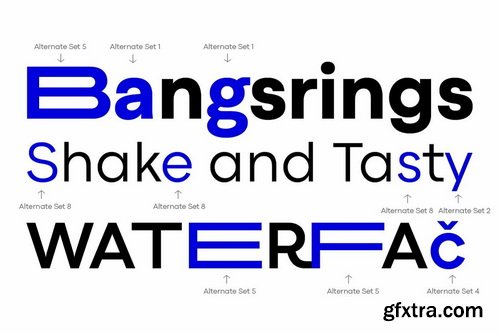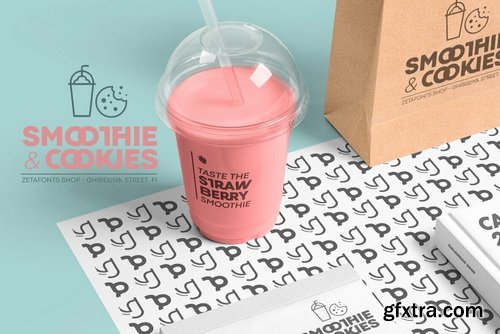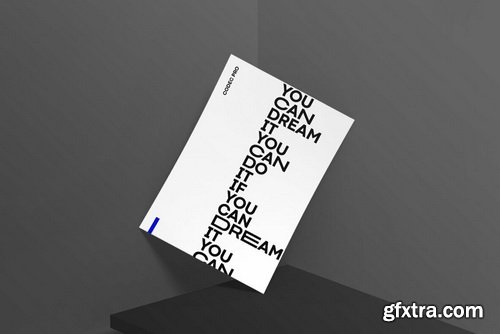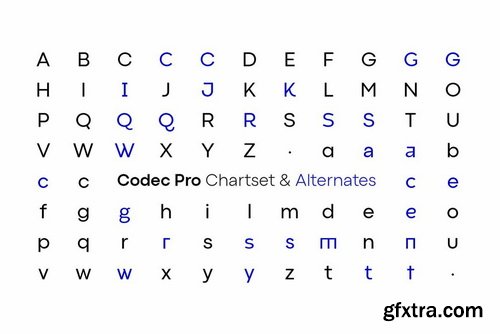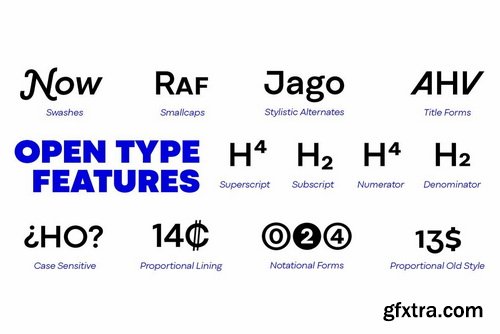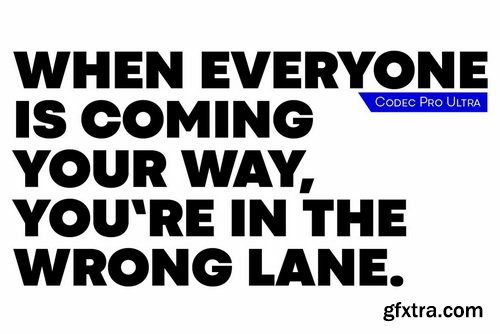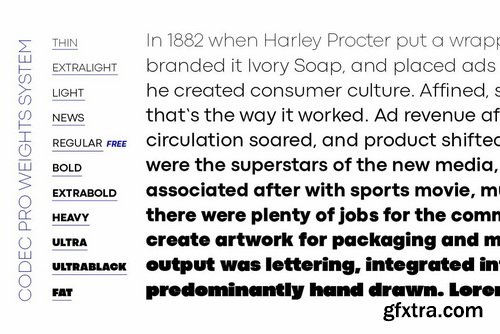
Codec Pro is the newest incarnation of the Codec family, developed in 2017 by Francesco Canovaro, Cosimo Lorenzo Pancini and Andrea Tartarelli as a research on the subtleties and the variations on the theme of the geometric sans-serif design. The original typeface has been completely redesigned and expanded to feature a wide range of eleven weights, from the hairline thin to the bulky fat, while the character set has been extended to include not only latin, cyrillic and greek but also arabic, farsi and urdu scripts.